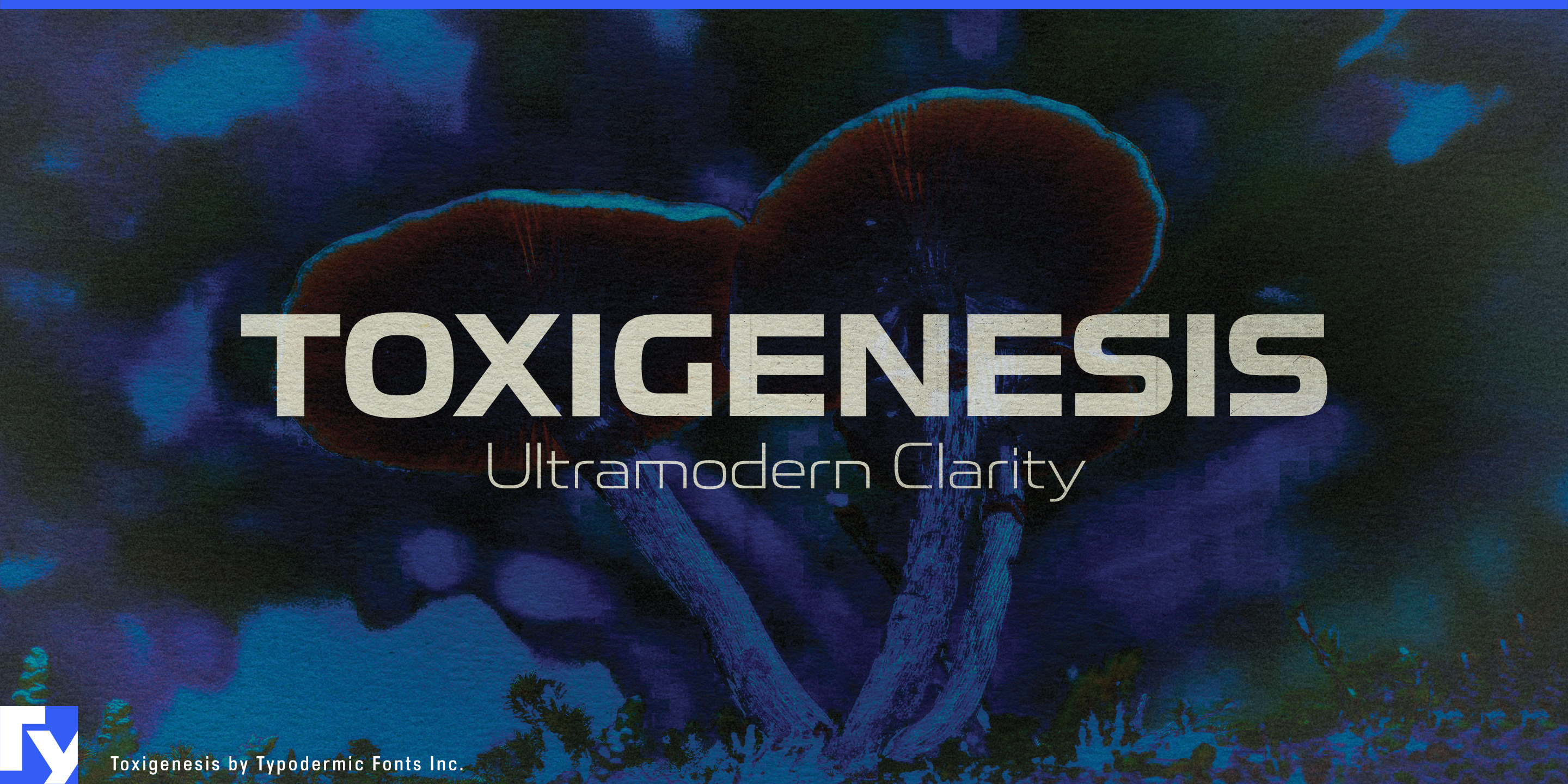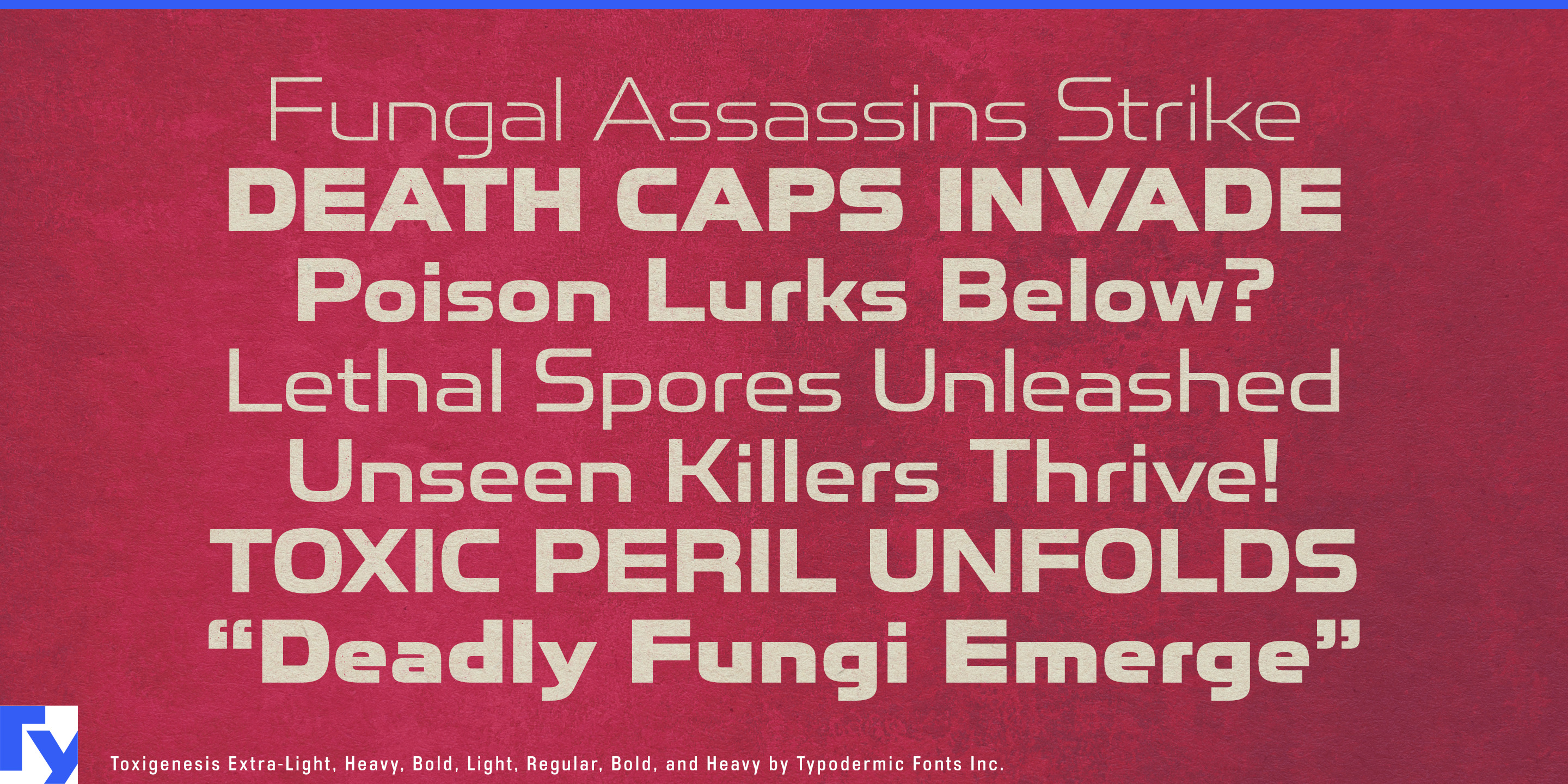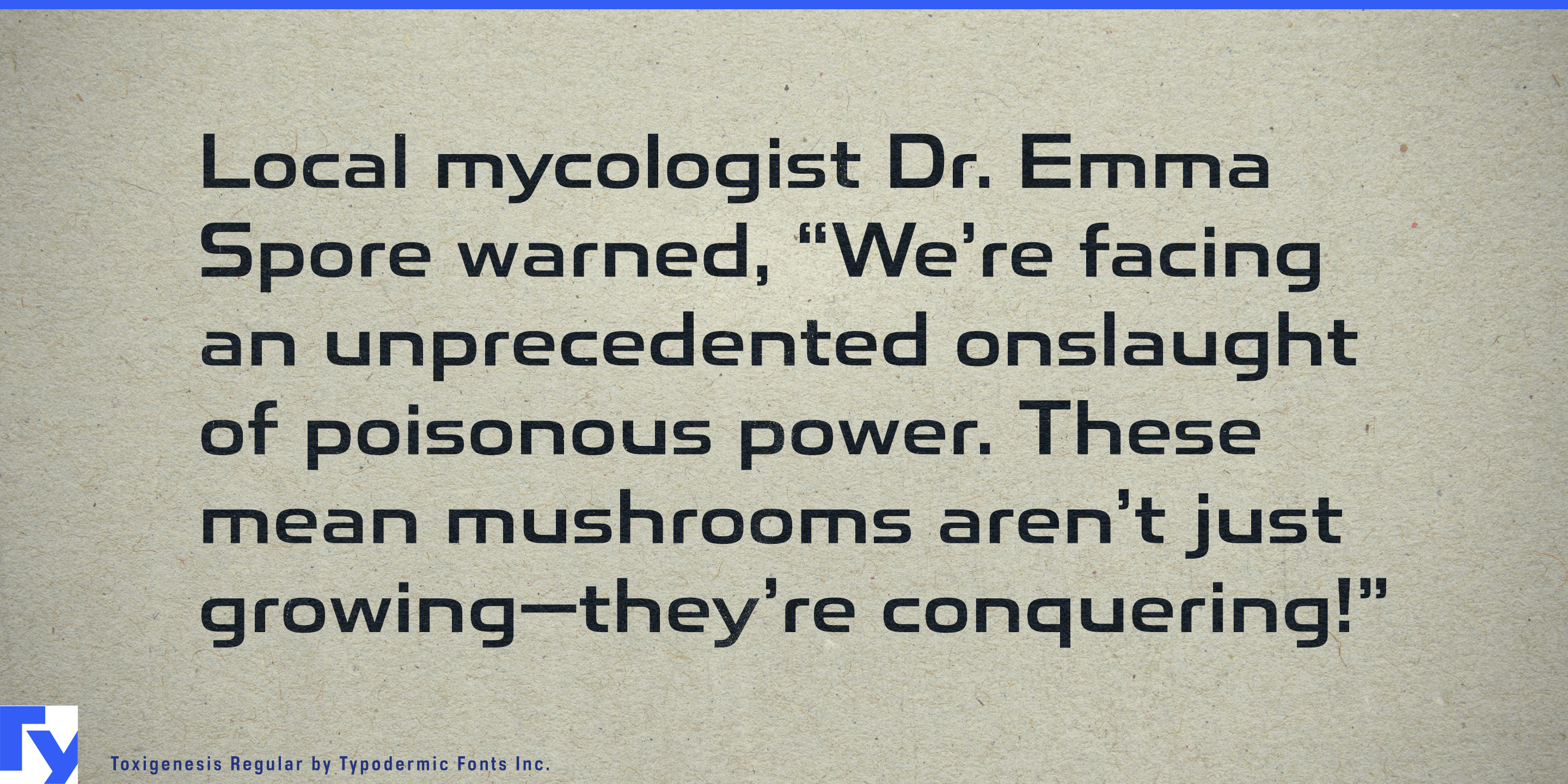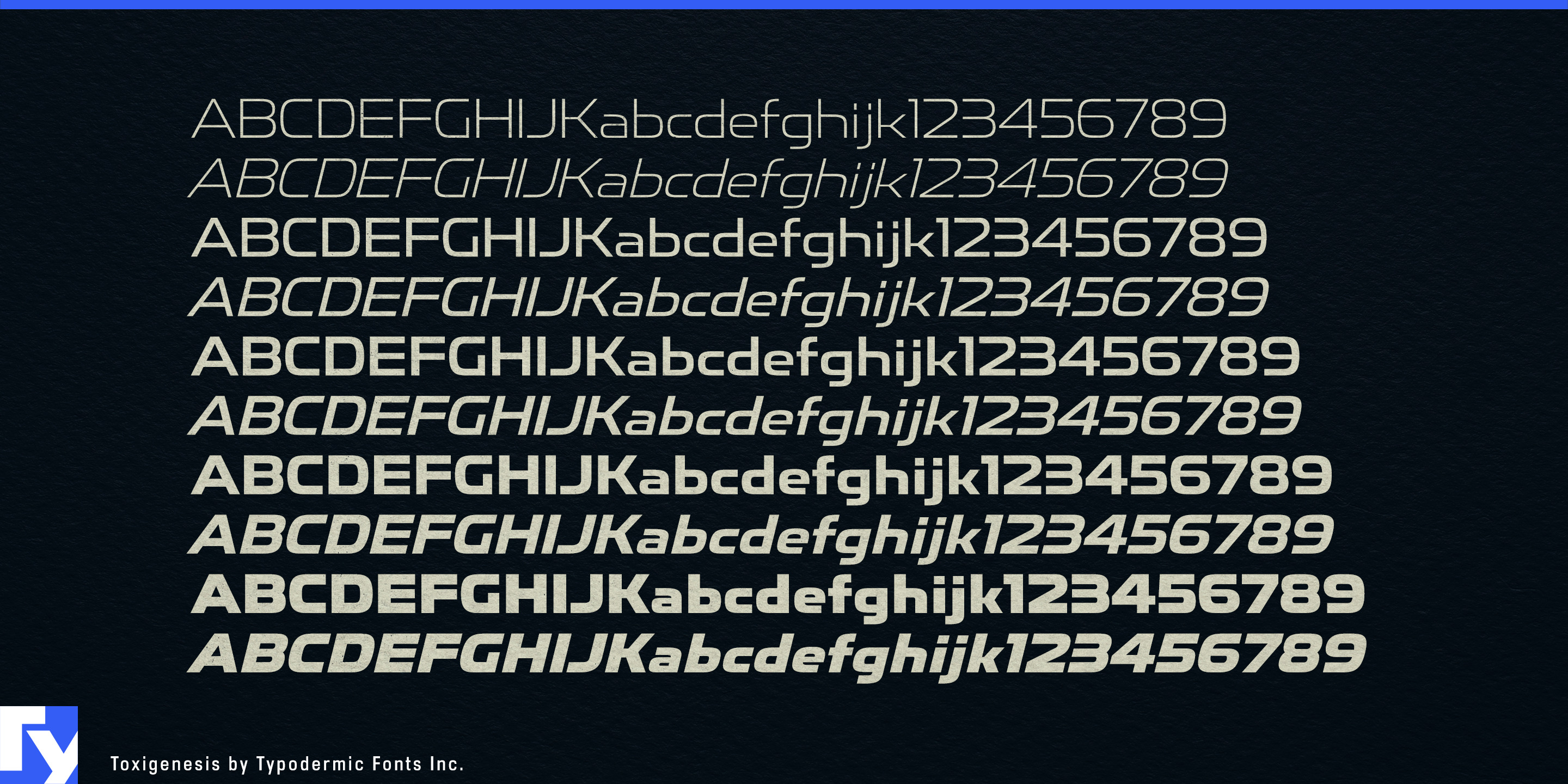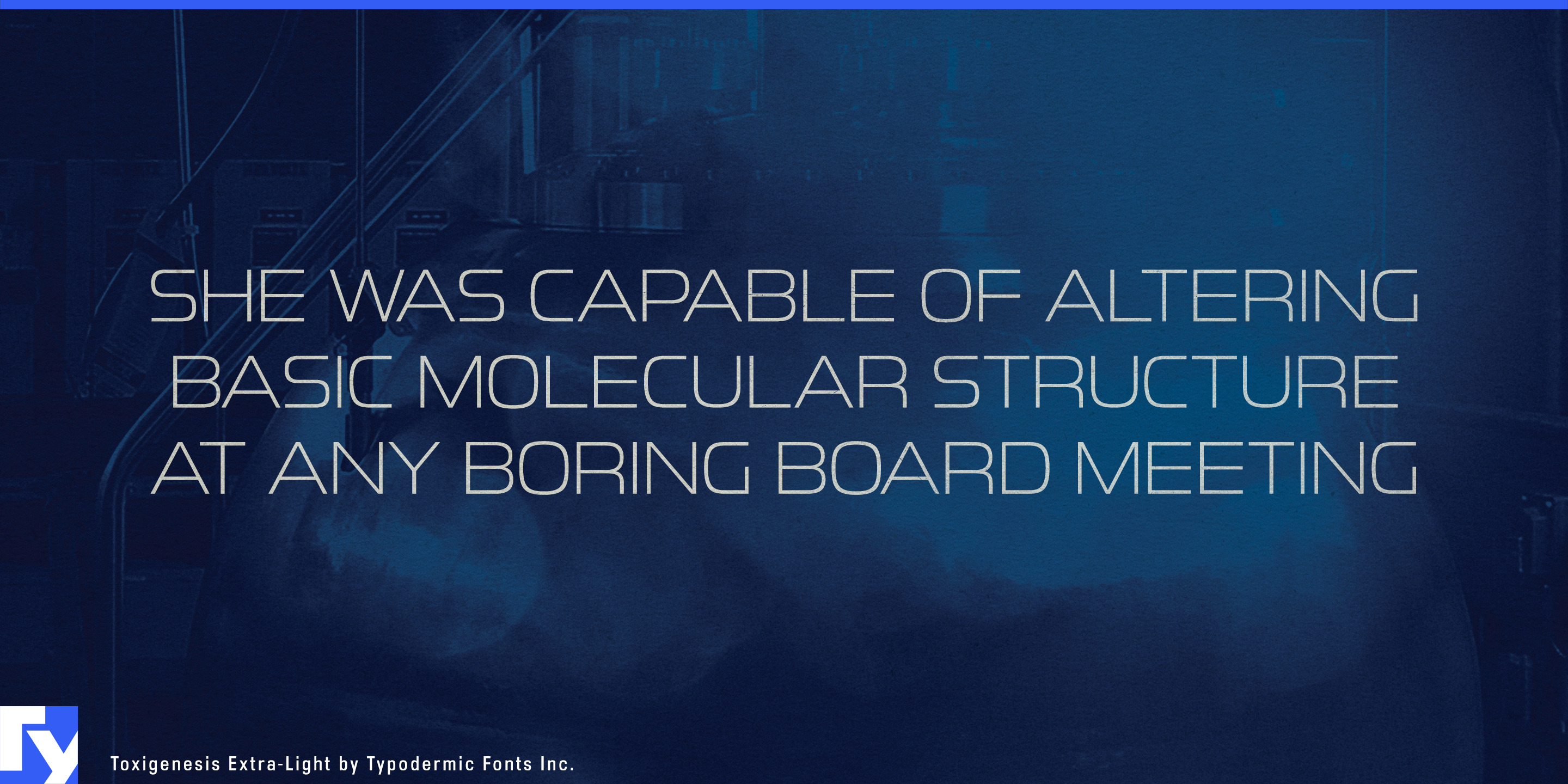
Toxigenesis
Advanced technology is often branded as though it exists only on a screen. Sleek geometric sans serifs can make a laboratory instrument, battery system, or charging unit look like another app; overtly futuristic lettering can make serious equipment feel fictional. Toxigenesis takes a different route. Its broad, smooth, superelliptical forms feel manufactured, like lettering molded into a housing, printed on an instrument panel, or applied to a vehicle.
That makes Toxigenesis particularly useful for physical medical and scientific equipment. Diagnostic analyzers, laboratory imaging systems, sample-processing machines, sterilization units, portable medical hardware, air-quality monitors, and home diagnostic devices all need typography that looks advanced without sacrificing institutional credibility. Heavy and Bold styles can carry product-family names across equipment faces; Light and Extra-Light suit model designations, exhibition graphics, presentation headings, and supporting technical information.
Visible energy hardware is another strong fit. Home battery systems, EV wall chargers, solar inverters, smart electrical panels, heat-pump controls, air purifiers, water-treatment equipment, and commercial charging stations increasingly occupy spaces where industrial equipment has to look considered rather than hidden. Toxigenesis has the horizontal stance to sit confidently across a charger faceplate, battery enclosure, control unit, or installation graphic without drifting into generic green-tech aesthetics.
Its automotive roots also make it comfortable around electric mobility. EV model campaigns, electric motorcycles, automotive electronics, battery systems, thermal-management products, sensors, charging hardware, and performance components can use Toxigenesis for model names, trim designations, trade-show graphics, vehicle graphics, and supplier identities. The heavier italics introduce speed without falling into the usual blocky racing vocabulary.
Advanced materials and industrial science provide another natural territory. Battery materials, specialty polymers, coatings, engineered ceramics, composites, semiconductor equipment, precision manufacturing systems, and industrial chemistry all require typography across equipment housings, technical reports, sample cases, product sheets, exhibition walls, and corporate presentations. Toxigenesis feels appropriately large-scale and engineered without becoming anonymous.
Across five weights with matching italics, Toxigenesis can move from airy technical display typography to heavy equipment branding while preserving the same broad shape language. Its strongest role is giving advanced technology a physical body: products that are engineered, molded, assembled, installed, tested, and manufactured rather than merely tapped on a screen.